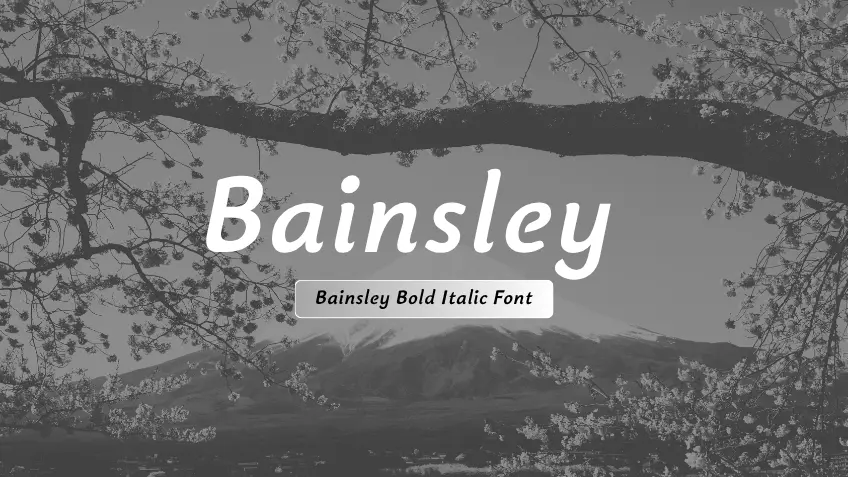
The font Bainsley Bold Italic, designed by Paul James Miller, falls under the Sans Serif category & Bainsley font family. Its smooth, flowing letterforms make it a versatile choice for projects that require both elegance and readability. Bainsley is particularly well-suited for Branding, Multilingual Projects, UI/UX Design and Long-Form Reading. With its balance of simplicity and decorative appeal, this font brings a polished touch to both personal and professional designs.